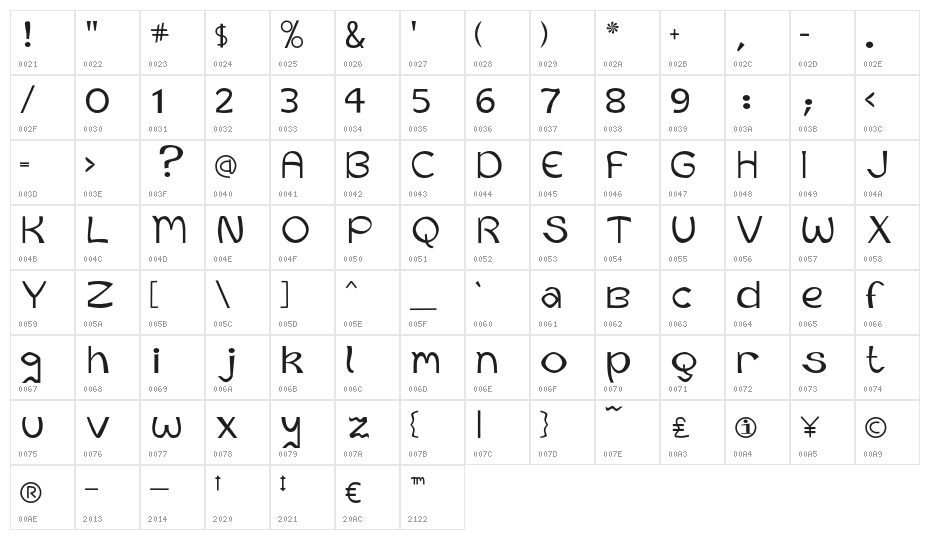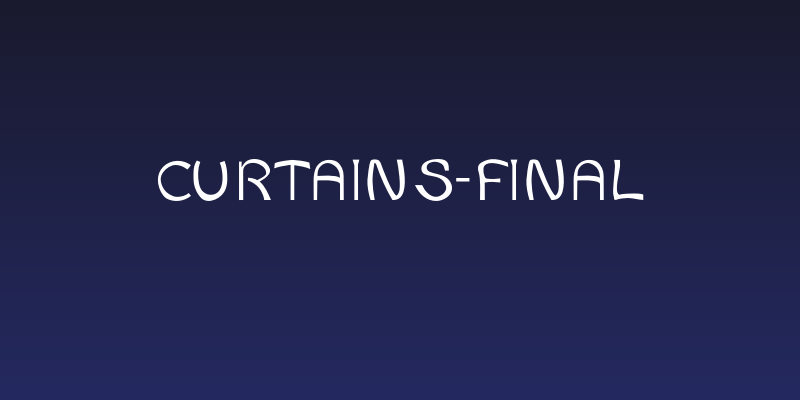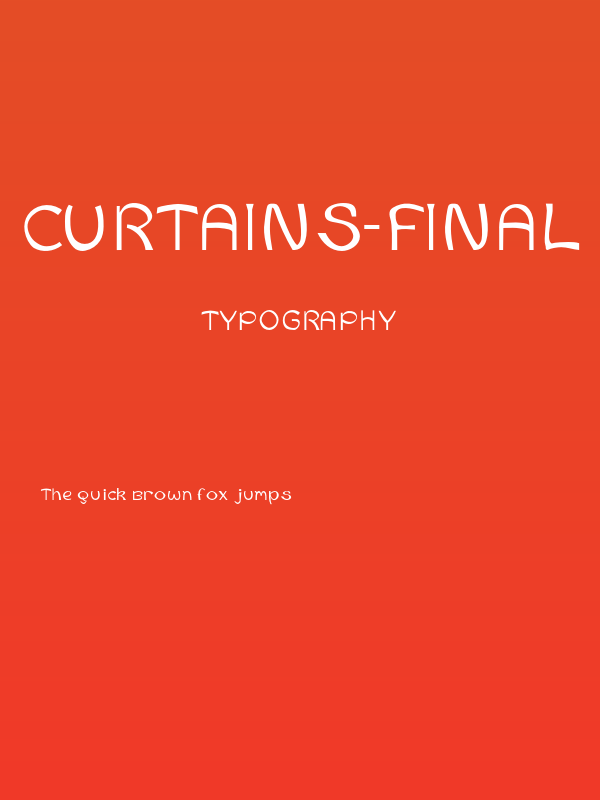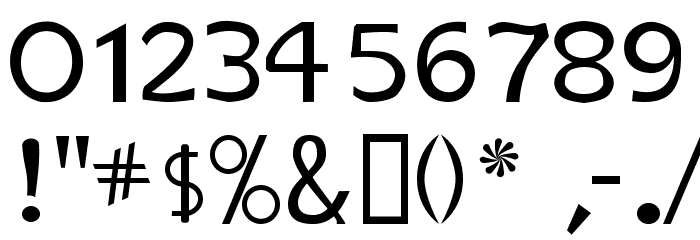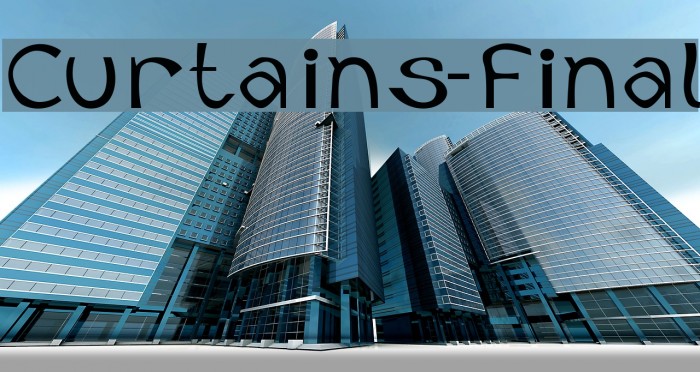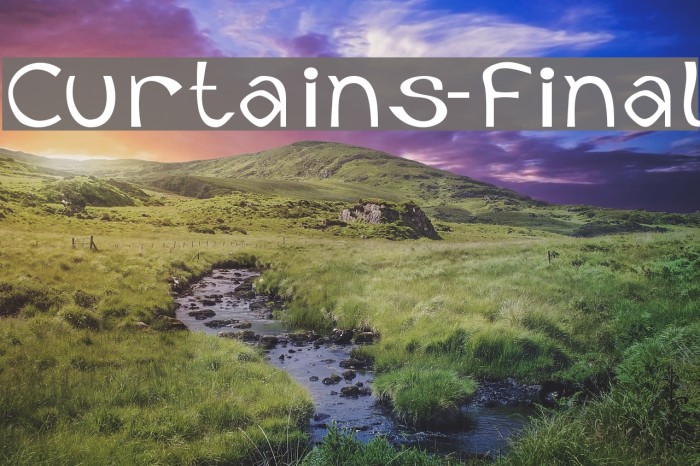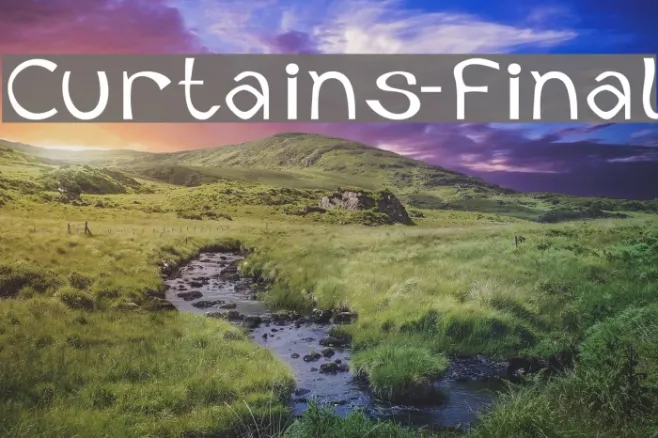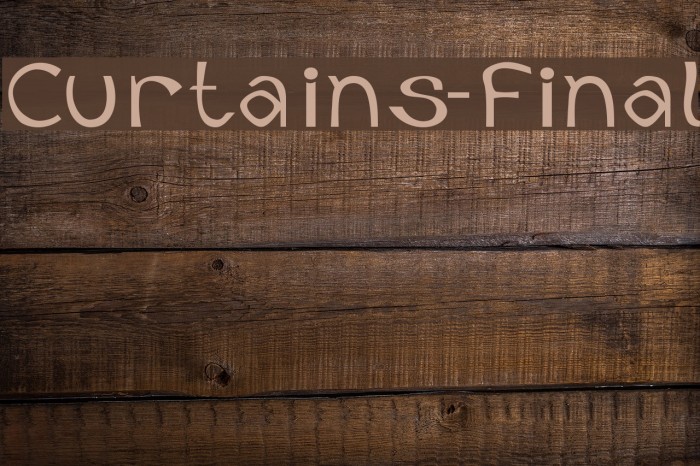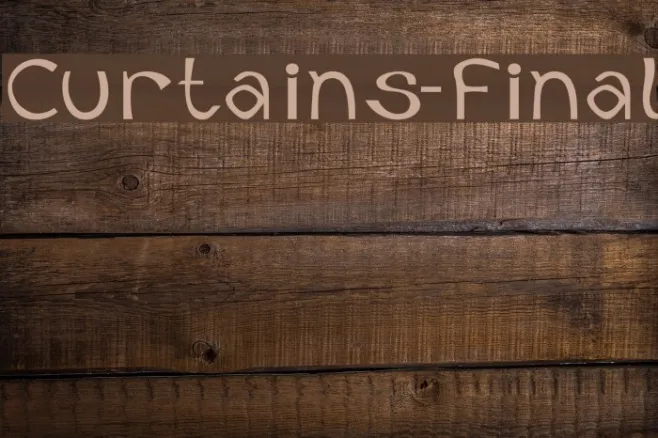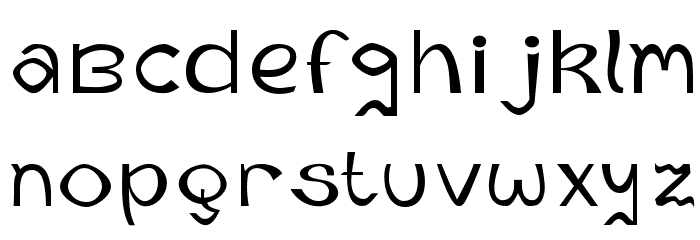
Curtains-Final Font
Curtains-Final Description
This font features a playful and whimsical design with a unique blend of curves and angles. The uppercase letters are bold and slightly condensed, giving a strong presence, while the lowercase letters exhibit a more fluid and dynamic style. The numbers are consistent with the overall playful theme, maintaining readability. Special characters are creatively designed, adding to the font's charm. The strokes vary in thickness, providing a medium contrast that enhances its visual appeal. This font stands out with its decorative flair, making it suitable for projects that require a touch of creativity and fun.